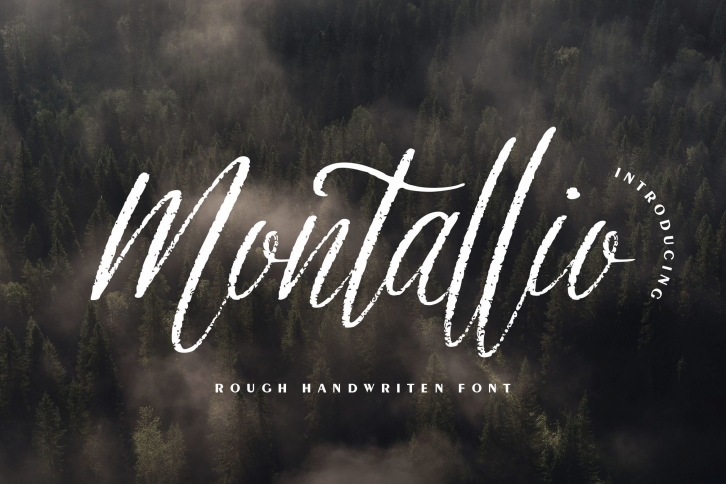
Montallio is a delicate, elegant and flowing handwritten font. It has beautiful and well balanced characters and as a result, it matches a wide pool of designs. The only limit is your imagination!